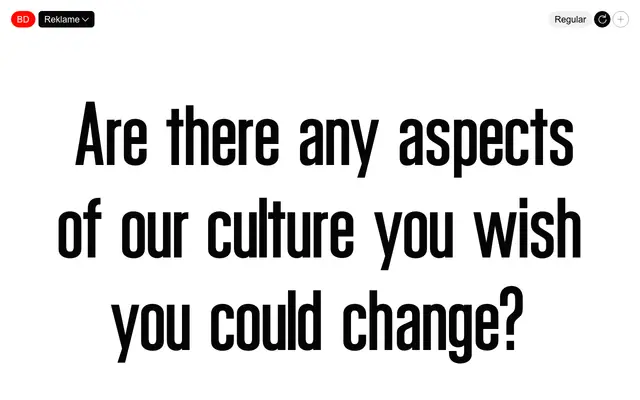
A single-weight grotesque from Bold Decisions, taking its name from the German word for advertising.
Reklame draws on the tradition of commercial and advertising lettering, as suggested by its German-derived name. Only a Regular weight is listed, pointing to a focused, display-oriented release rather than a broad text family. Bold Decisions is a small independent foundry, and Reklame fits their stripped-back, deliberate approach to type releases.
The name 'Reklame' (German for advertising/commercial) and the single weight suggest a display-oriented grotesque in the tradition of commercial lettering; classified as sans-serif grotesque based on context and naming conventions.